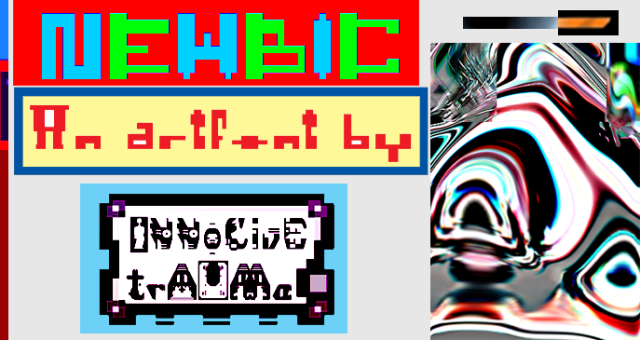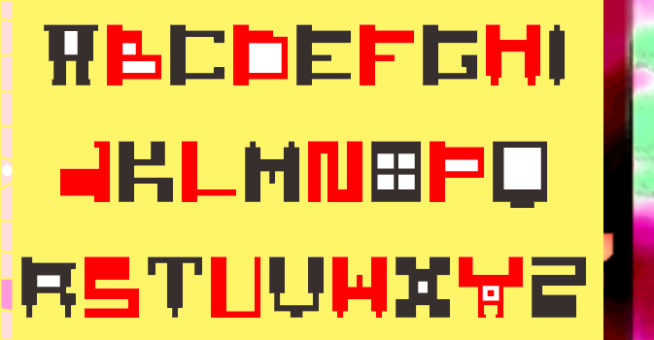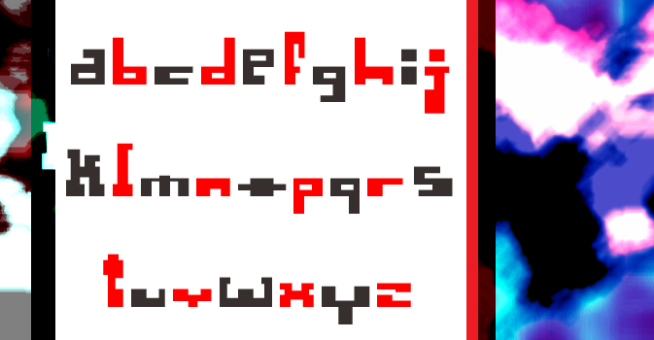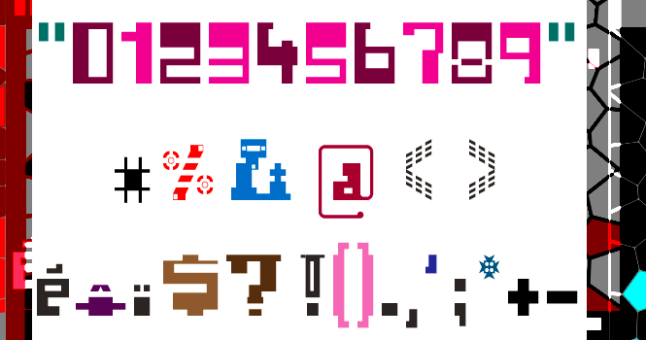
trAUMa 43 / Newbic
"Newbic", like all the "trAUMa" series, works at the frontier between Art & Type Design, Figuration & Abstraction, each font is a comprehensive world in which every glyph is a "living" entity. But put together they can produce your messages in the most accurate way.